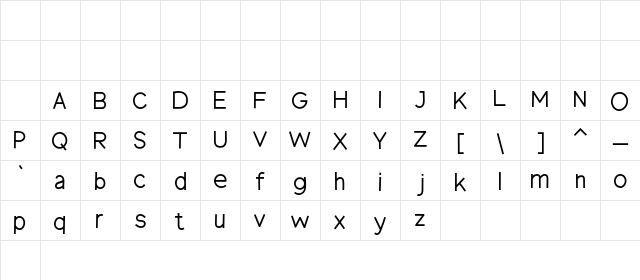
Courageous is a composed and adaptable typeface that performs quietly and consistently across a wide range of design contexts.
Pro Tip: Use Courageous in both headline and body roles to test its range before committing to a single application.